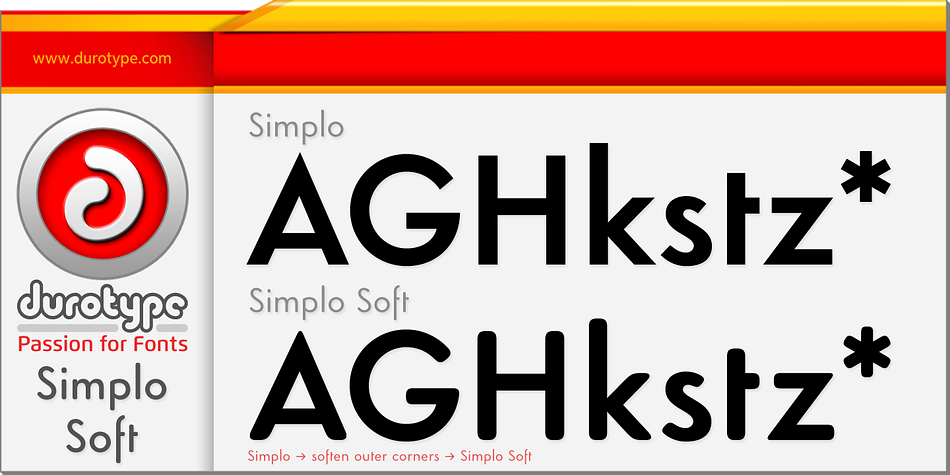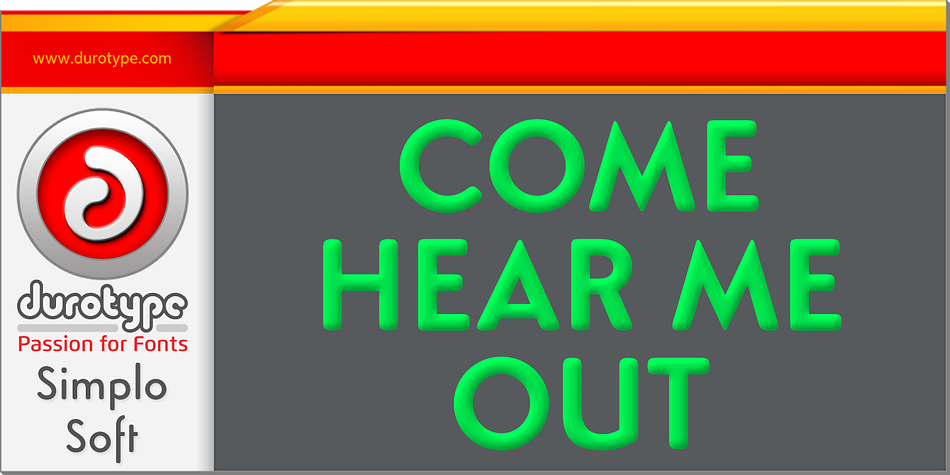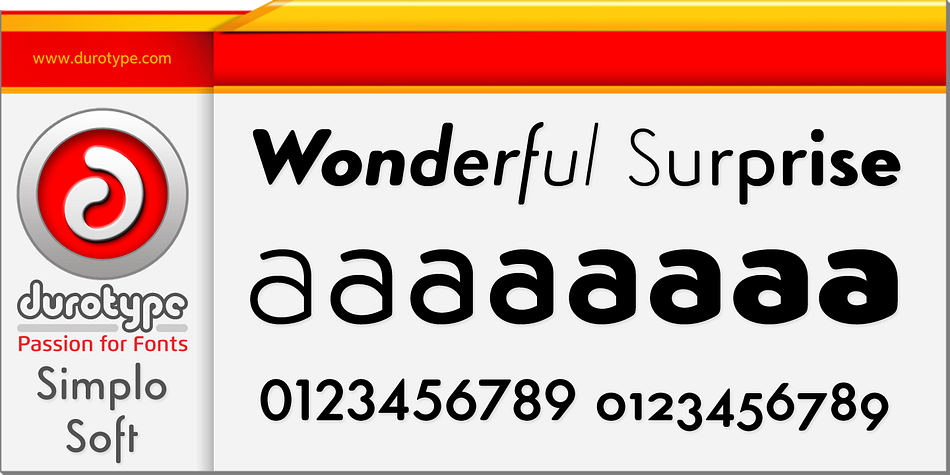
Simplo Soft
Simplo Soft is a sans serif and display sans font family. This typeface has seventeen styles and was published by Durotype.
Simplo Soft is the soft companion of Simplo.
In Simplo Soft, Simplo’s original sharp geometrics have been tempered by the moderate rounding of the edges of its characters — creating a softer and friendlier geometric typeface.
Simplo Soft is ideal for use in display sizes.
It is also quite legible in text, and is well suited for graphic design and corporate identity design.
Simplo Soft has sixteen styles, extensive language support, eight different kinds of figures, sophisticated OpenType features — so it’s ready for advanced typographic projects.
Simplo Soft is the soft companion of Simplo. In Simplo Soft, Simplo’s original sharp geometrics have been tempered by the moderate rounding of the edges of its characters — creating a softer and friendlier geometric typeface.
Simplo Soft is ideal for use in display sizes. It is also quite legible in text, and is well suited for graphic design and corporate identity design. Simplo Soft has sixteen styles, extensive language support, eight different kinds of figures, sophisticated OpenType features — so it’s ready for advanced typographic projects.